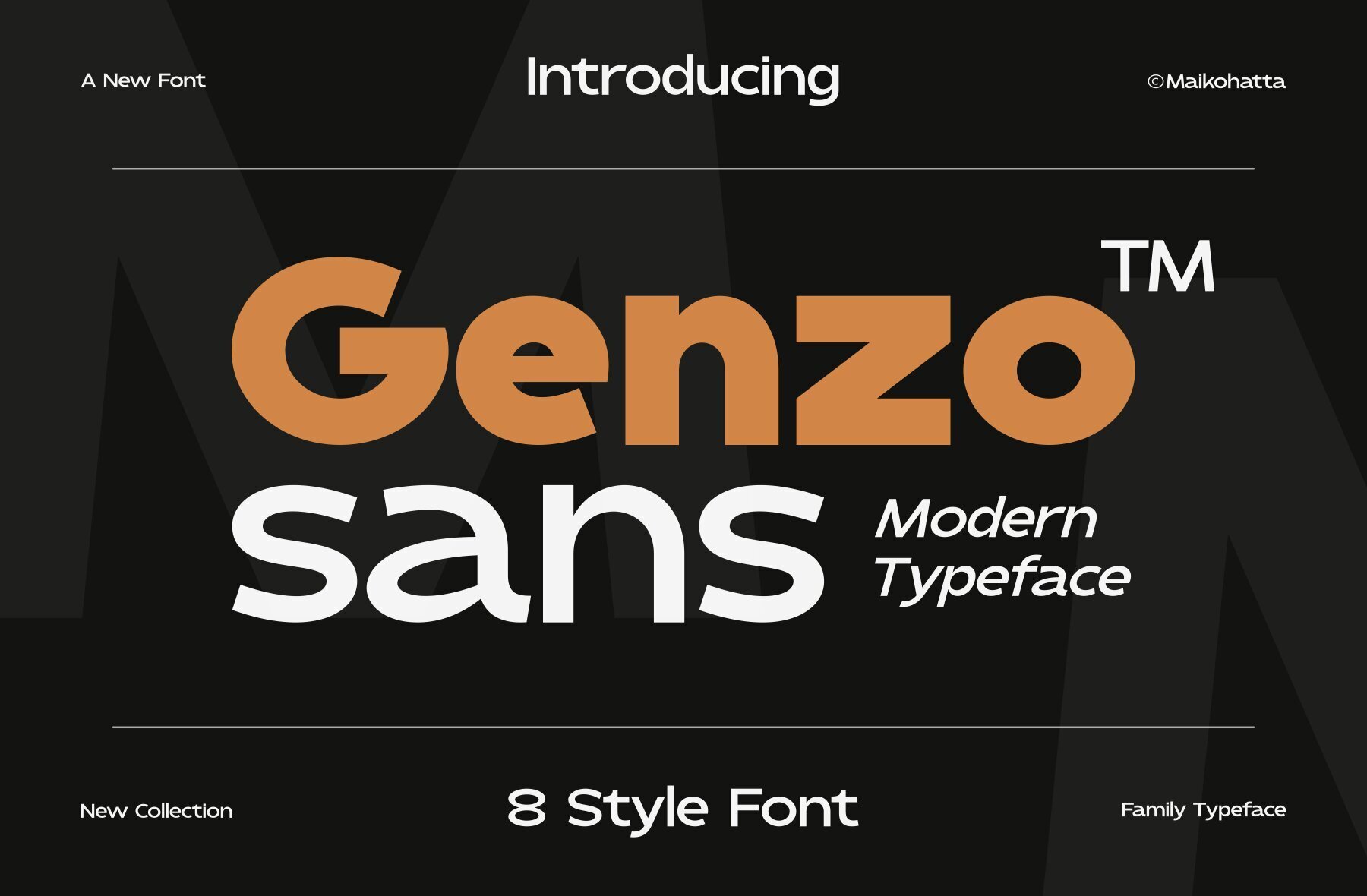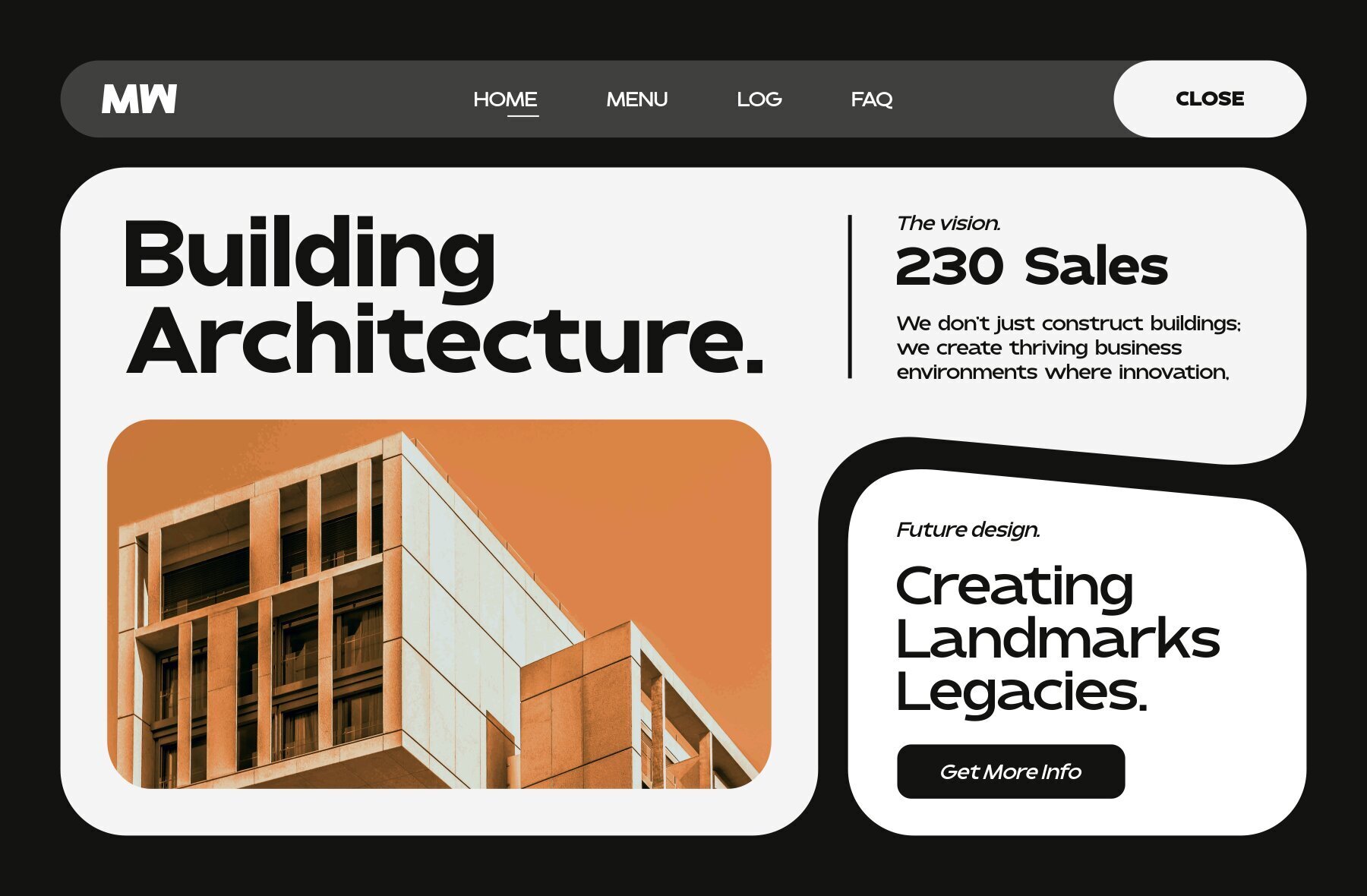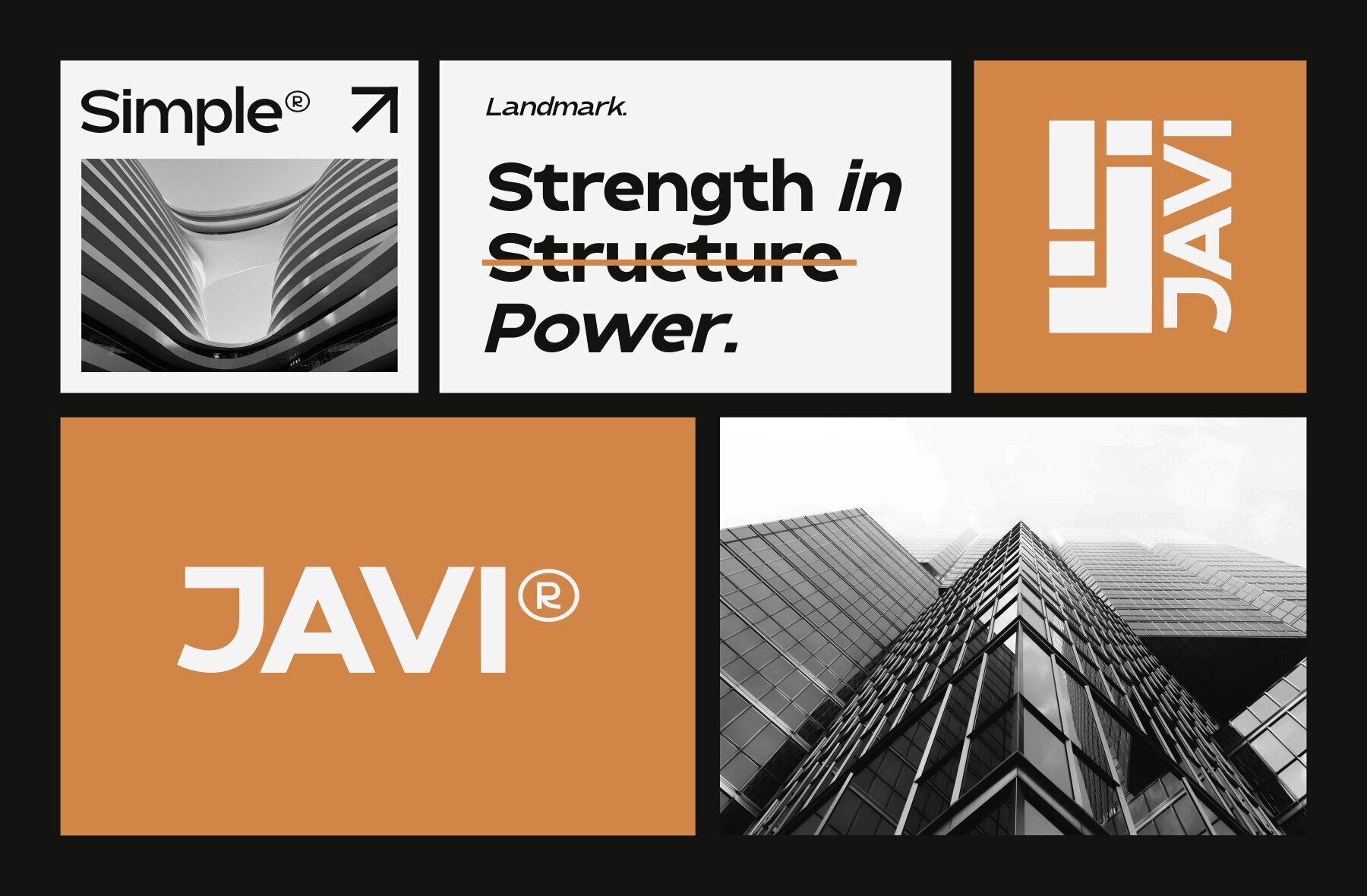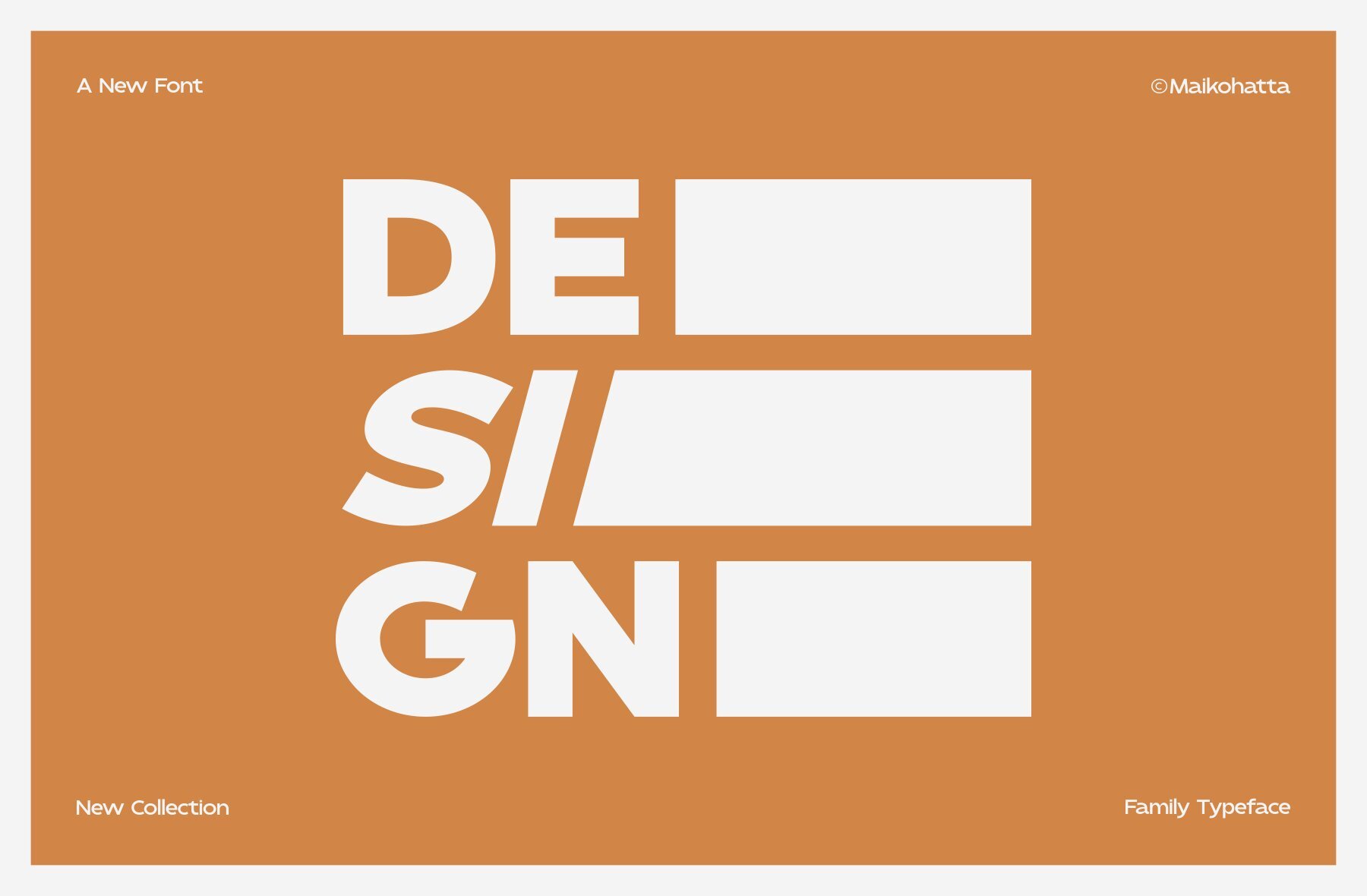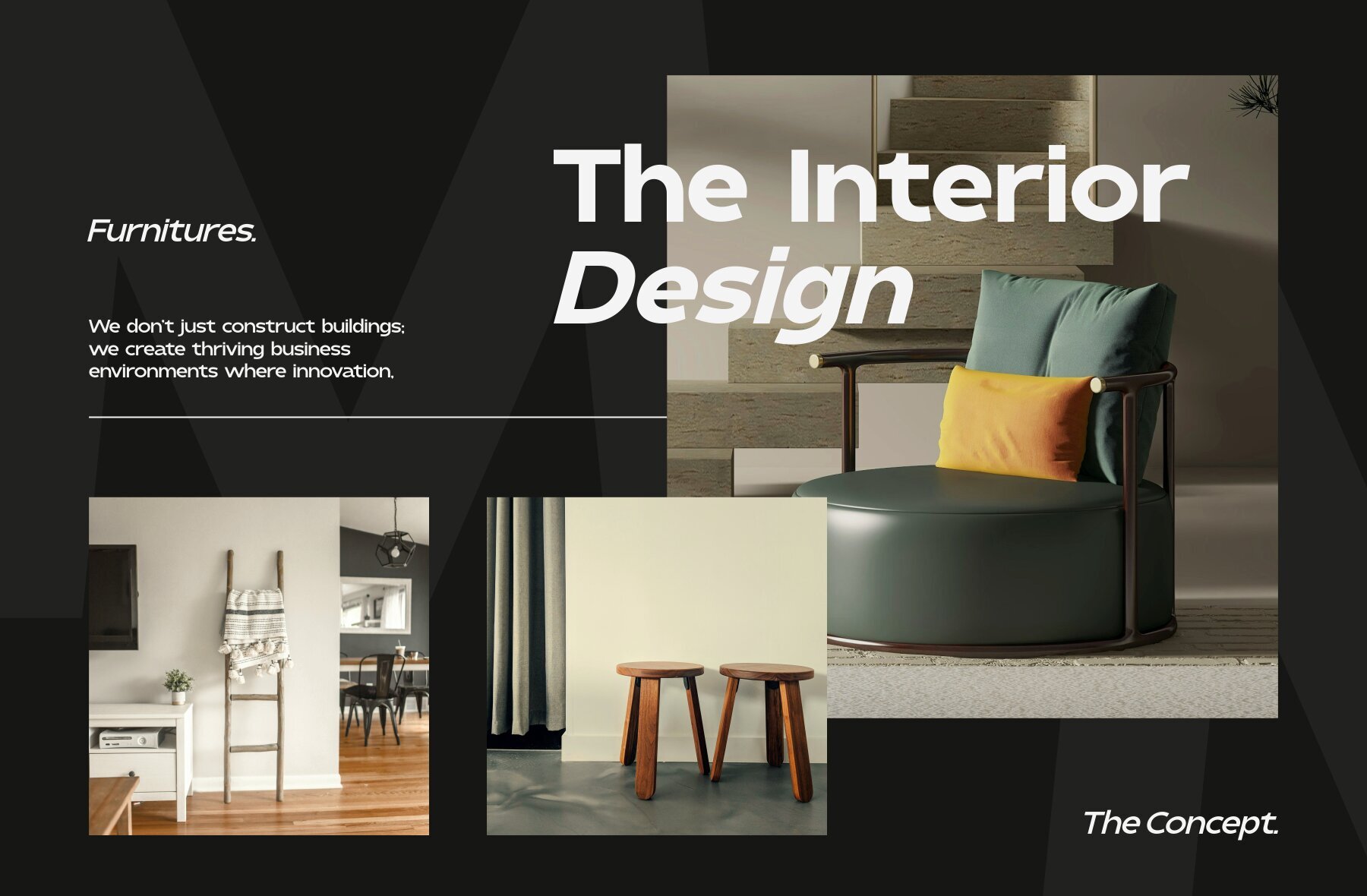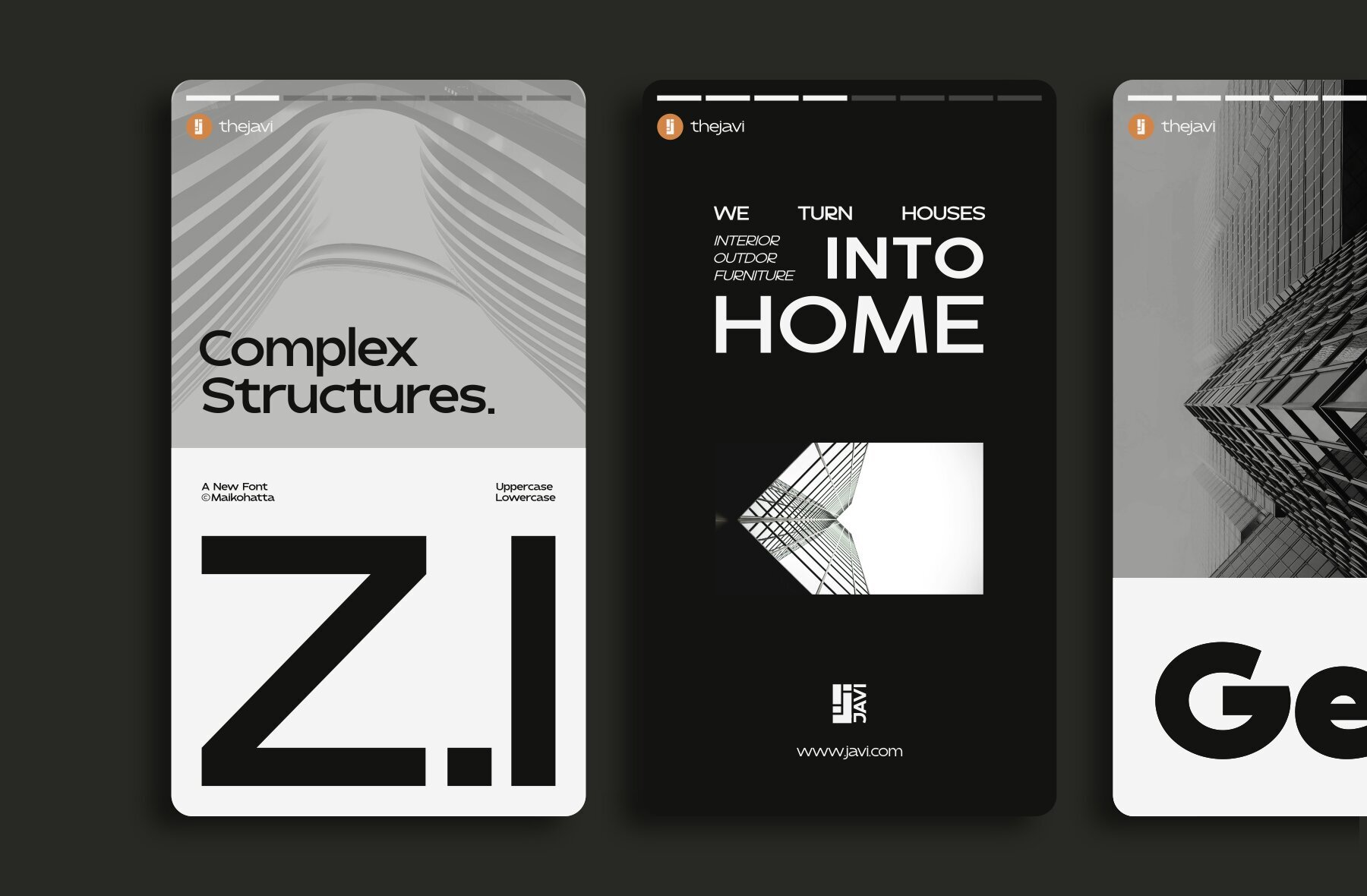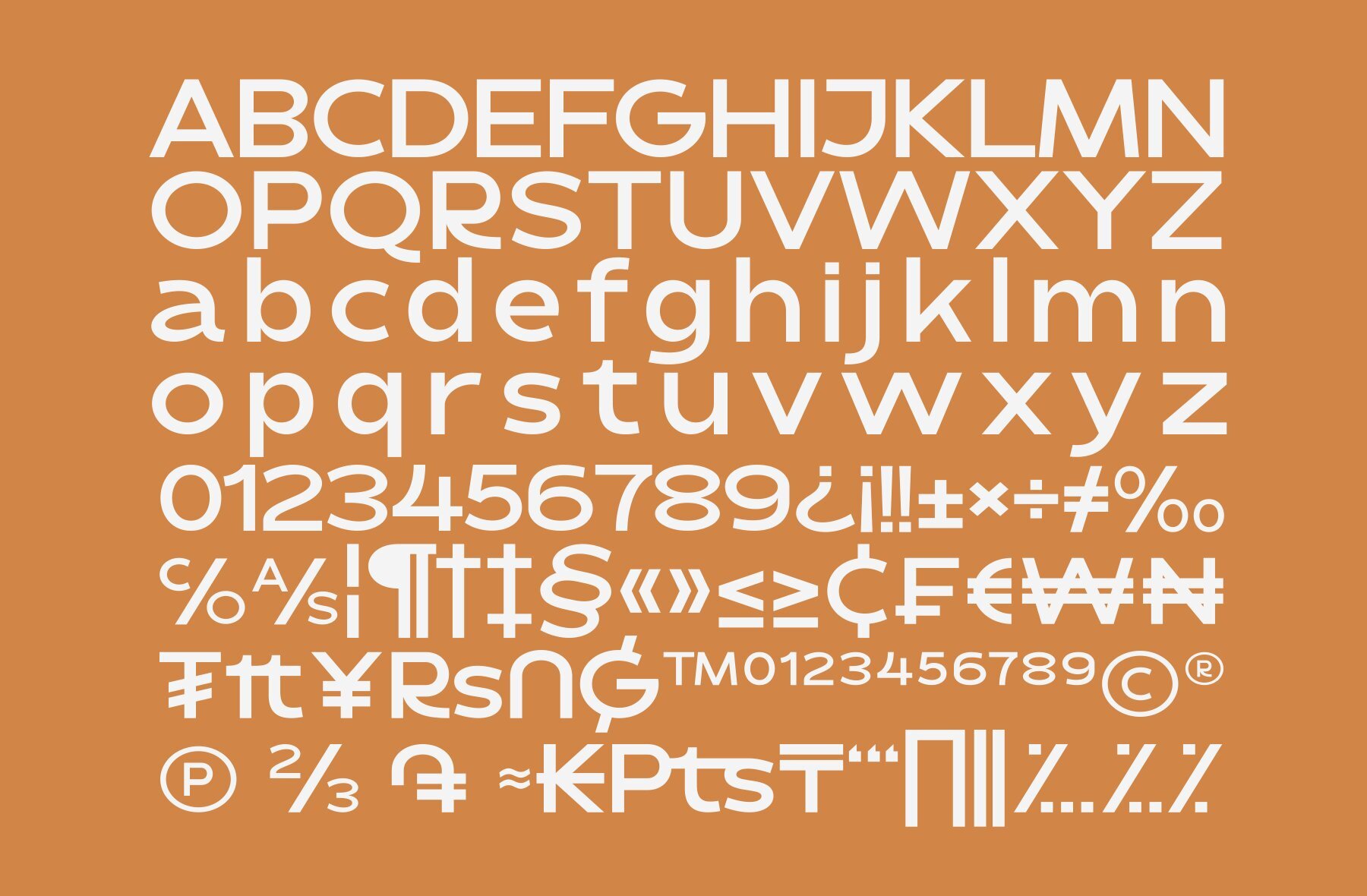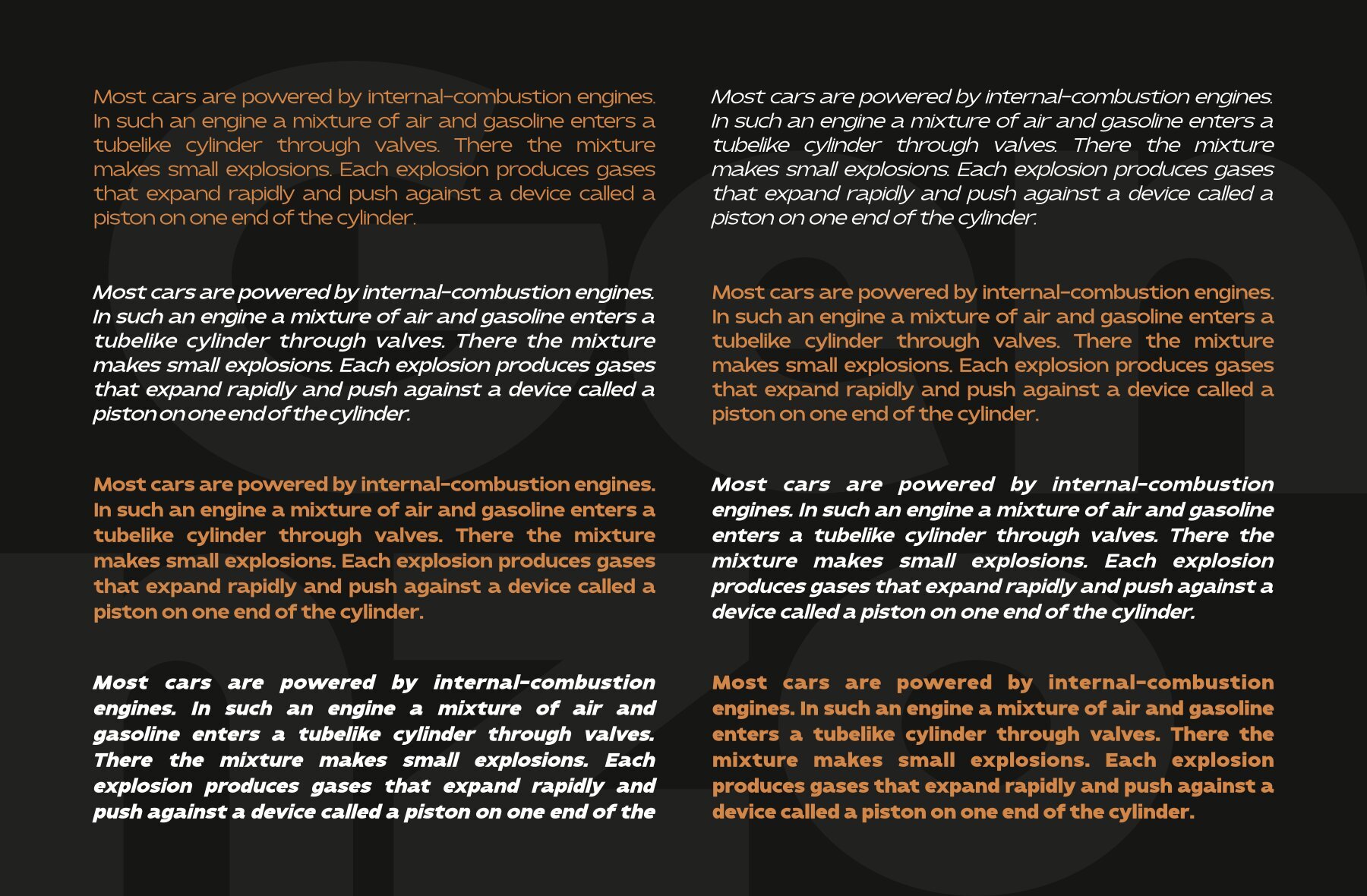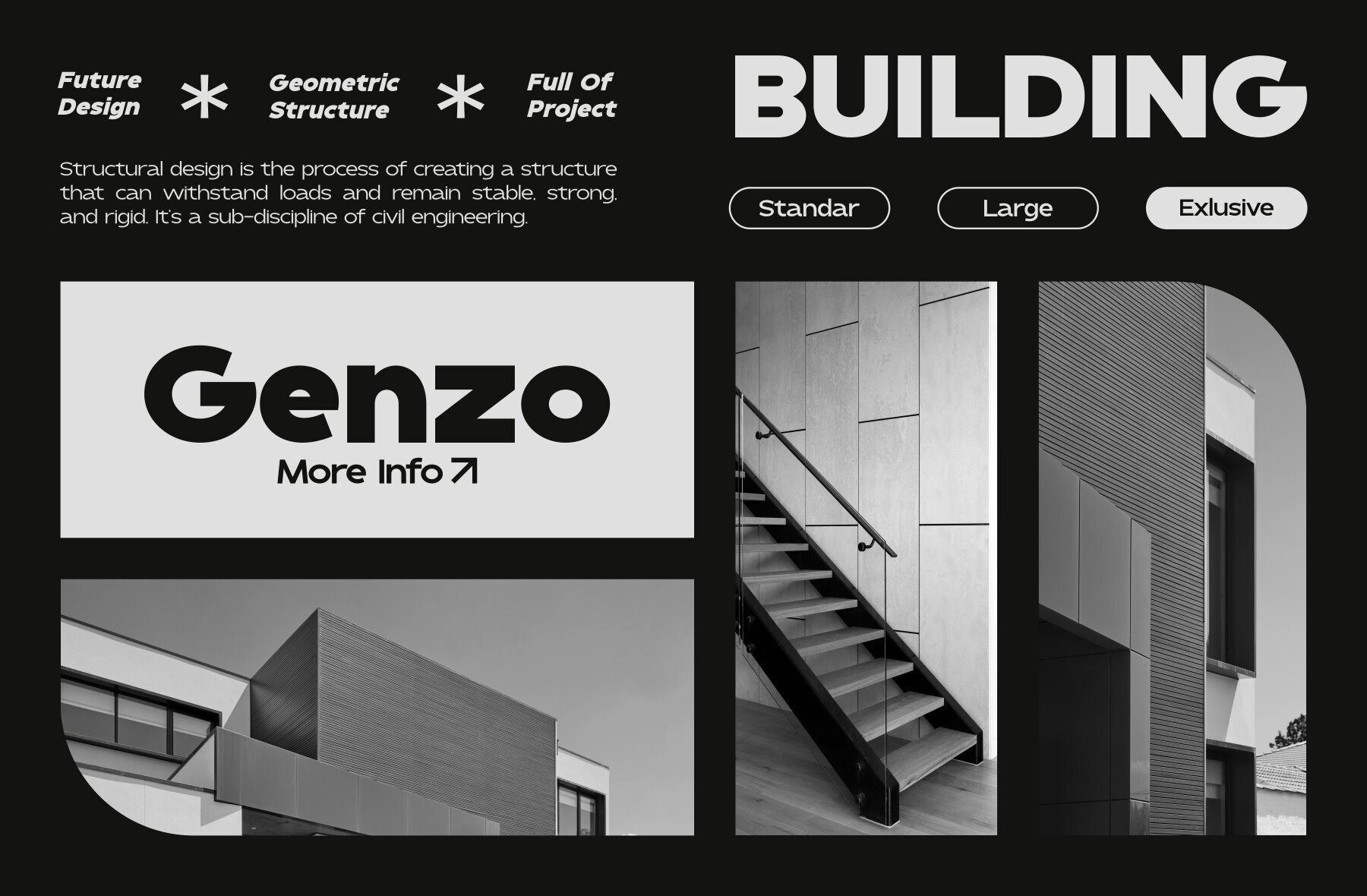
Genzo Font
Introducing Genzo, a contemporary sans-serif typeface designed for versatility in graphic design and modern text displays. This font family is perfect for projects that demand clean and adaptable text styling. With its diverse range of styles, Genzo allows you to tailor your typography to meet the specific needs of your project, providing an appealing and legible experience across various applications.
Key Features:
- Uppercase and lowercase options
- Multilingual support
Available Styles:
- Regular
- Bold Italic
- Italic
- Light
- Light Italic
- Semibold
- Semibold Italic
Genzo's flexible style selection makes it easy to create visually engaging text that stands out, ensuring your design is both effective and aesthetically pleasing.